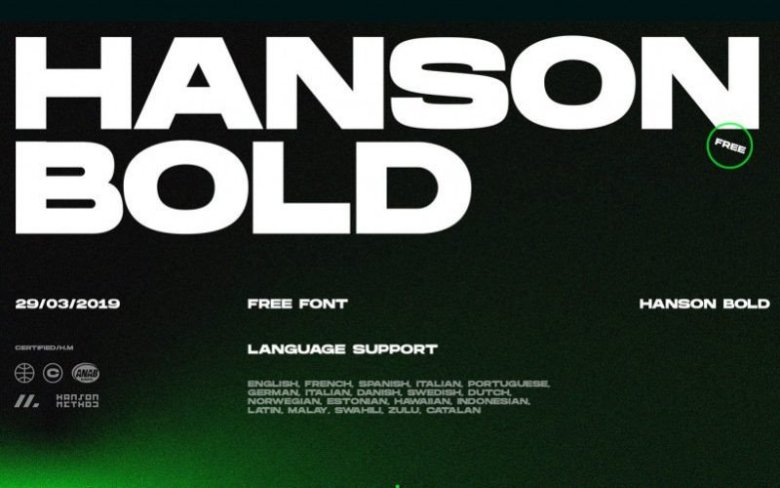
Hanson Bold Font Free
Thank you for looking this font. This is a chunky bold typeface, the geometric, tempered by softened edges and vibrant shapes. Perfect for any fun quirky design work! Introducing Hanson Bold Font! HANSON BOLD Is the latest font from Hanson Method. Works well for bold strong brand identities, logo types, posters & more. A regular version of Hanson will be made if there is enough demand.